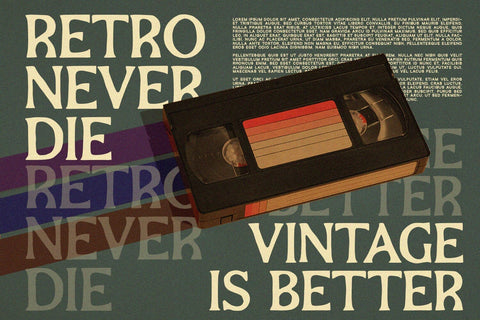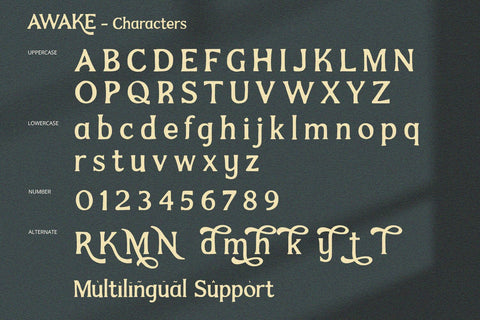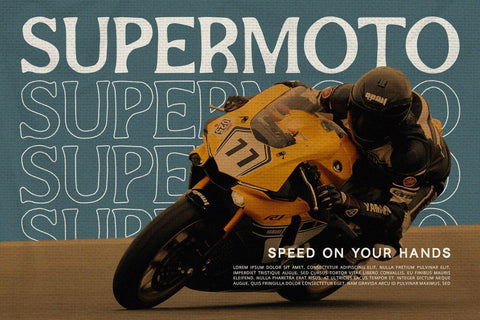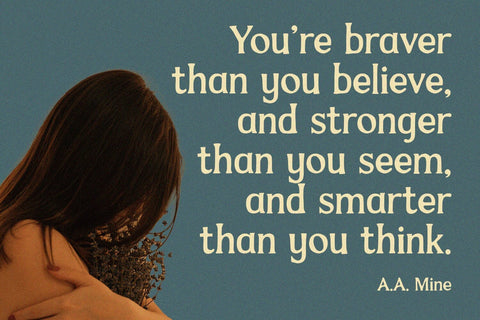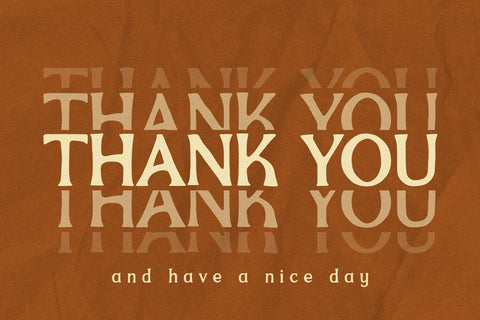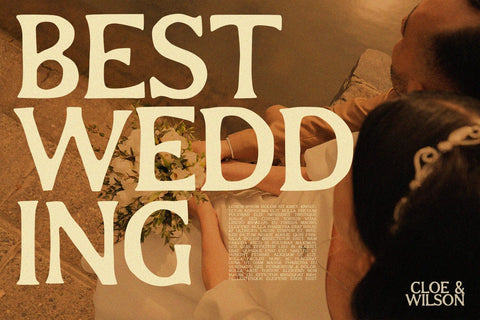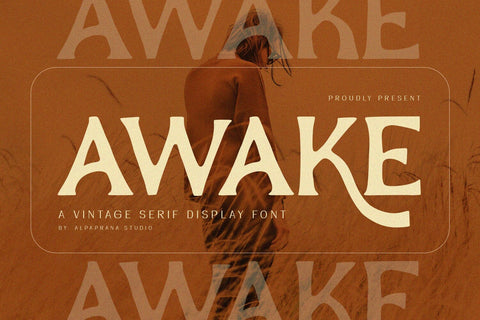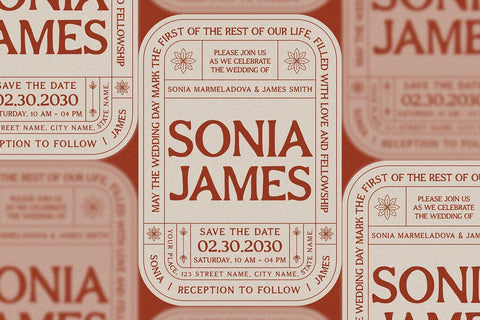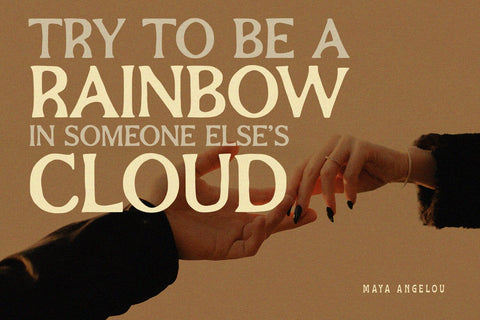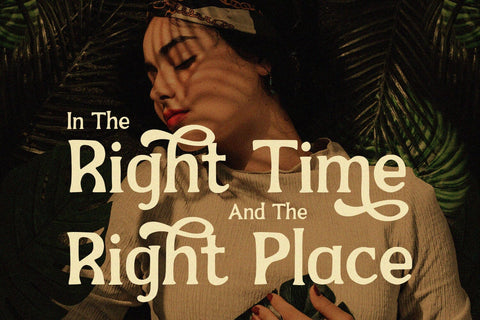
Awake - Serif Font
Awake is a serif font with elegant and modern feels. It will be perfectly used for Branding, Logo Design, Lettering, Logotype, Clothing, Poster, magazine, packaging, posters, shopping bags, t-shirts, book covers, photography, special events and other design project.